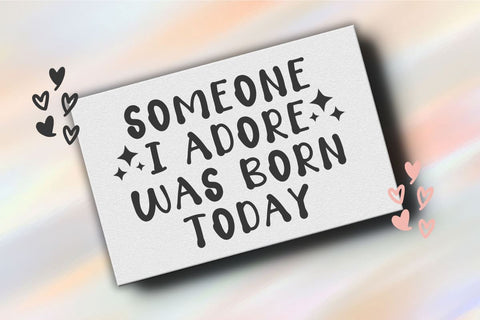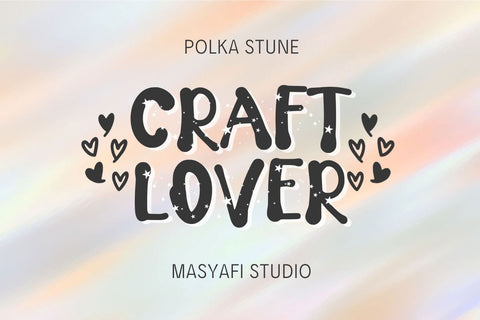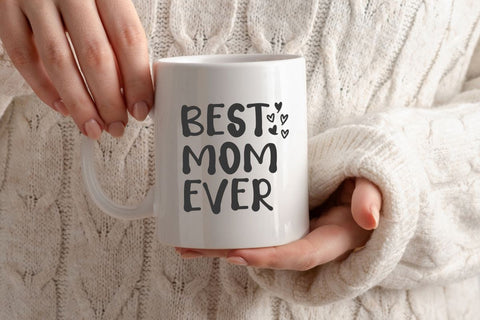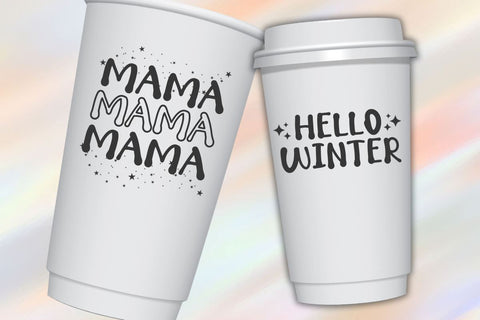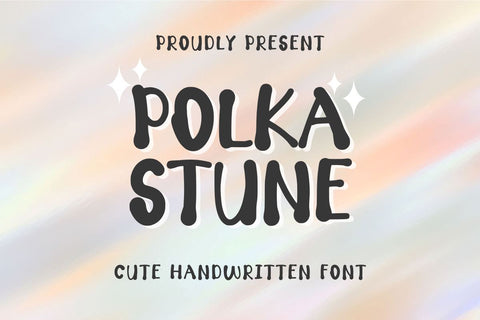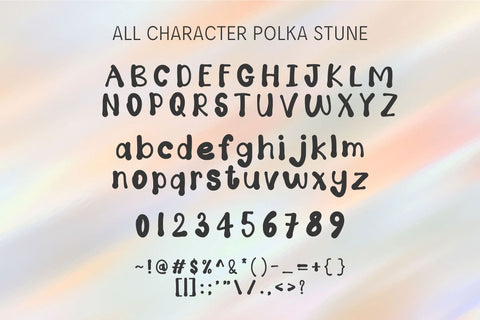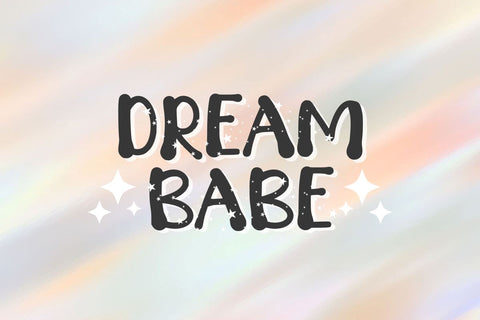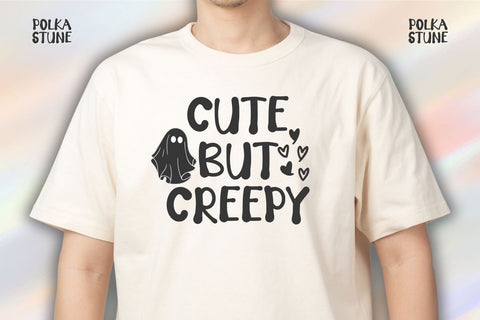
Polka Stune - Cute Handwritten Font
Introducing Polka Stune - Cute Handwritten Font
Experience the joyful spirit of "Polka Stune," an endearing handwritten font that brings a playful and whimsical touch to your creative projects.
Key Features:
🎨 Playfully Whimsical: Polka Stune's charming script captures the essence of youthful creativity, making it perfect for a wide range of fun and informal design applications.
🎨 Versatile Usage: Ideal for greeting cards, scrapbooking, DIY projects, personal branding, and handwritten signatures. Infuse your work with a lighthearted, handmade feel.
🎨 Unleash Your Creativity: Let your imagination run wild with this font's unique and adorable characters, allowing for endless creative freedom.
🎨 Easy Customization: Personalize your projects by adjusting letter spacing and design elements effortlessly.
Elevate your creative endeavors with "Polka Stune - Cute Handwritten Font." Whether you're crafting cheerful greeting cards or adding a touch of whimsy to your DIY projects, this font exudes a sense of youthful charm.